The Best Cricut Fonts
Here’s an ultimate guide to the BEST Cricut Fonts that you can download for Free or Cheap! You can use any font with Cricut Design Space, but I have found some of my favorites. See all of the best fonts for Cricut (and also design ideas and examples!) so you can make projects that everyone will love!
Are you looking for amazing fonts that you can use with Cricut Design Space? I have done loads of research, searching, and testing, and here are some of my favorite trending and classic cursive, print, doodle, graphic, and dingbat fonts. Some of these fonts I use for my most popular designs, and now you can too!
Best Fonts for Cricut
If you own a Cricut, it is very likely that Cricut Design Space fonts (or the lack there of) have been the subject of many design discussions and questions. But, did you know that you can use ANY font with your Cricut machine? That’s right! You can download beautiful, premium fonts to your computer and use them right in Cricut Design Space as to make any project! And the best part is that you can get quality fonts for FREE or for just a few dollars if you know the best resources!
Although Cricut Design Space has recently improved the font library that is included with Cricut Access, if you want to get the most out of your Cricut you definitely want to download your own fonts. Fonts are just like any other files you download for your Cricut. There are some good ones and some not so good ones. There are a ton of places to download fonts, but there are only a couple of places to get really GREAT fonts that you can use with your Cricut or Silhouette machine.
Popular Fonts for Cricut
Since there are SO many fonts to choose from, I’m going to share some of my favorite fonts in a few categories. PLUS, I’m going to show you Cricut designs that I’ve made and give you the direct link to the font I used!
Handwritten
All of these fonts will give your designs a hand lettered or handwritten look. It’s a popular trend, especially with shirts, signs, and mugs. These are all great fonts for creating craft items that are easy to market!
Hand lettered fonts can include all other types of fonts – like serif and script fonts. That’s another reason they’re so popular! They are easy to combine and often times come in Font Duos that you can download, which means you don’t have to look for fonts that look great together!
This font reminds me of how I used to write in middle school, complete with heart punctuation points. Minimalist has a clean look while also being clearly hand written.
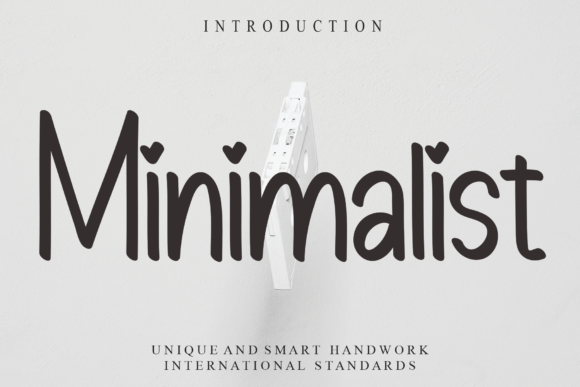
The Islander is one of my new favorite fonts for summer. I can think of SO many SVG designs to make with it!
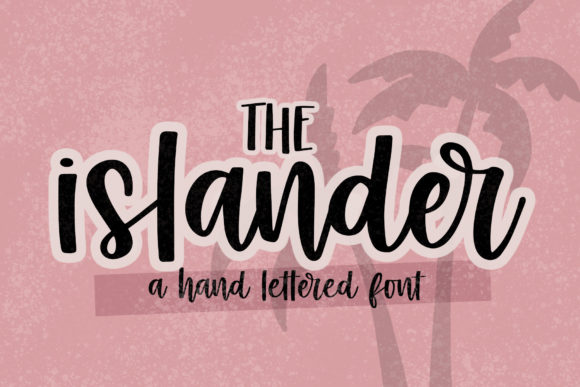
I love the look that Hampton gives to designs – it looks as though someone just picked up a pen to write a word or phrase. It is perfect for mugs, notebooks, and any project you want to have a casual feel.